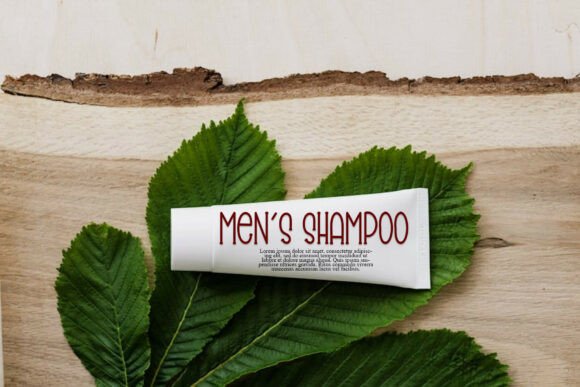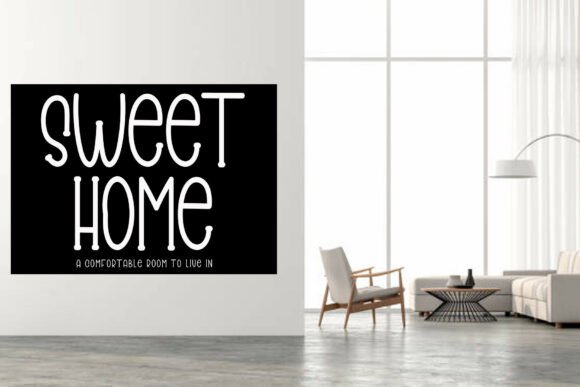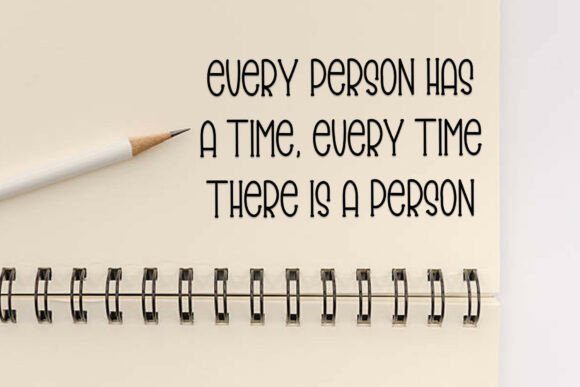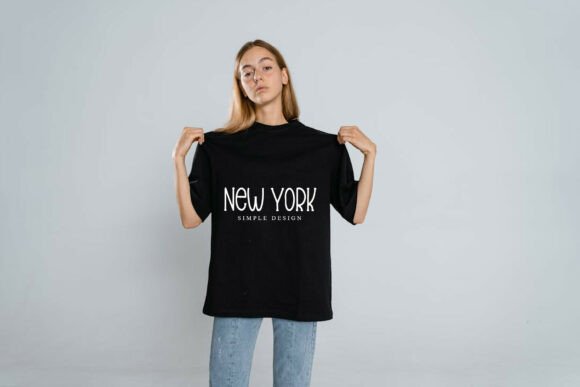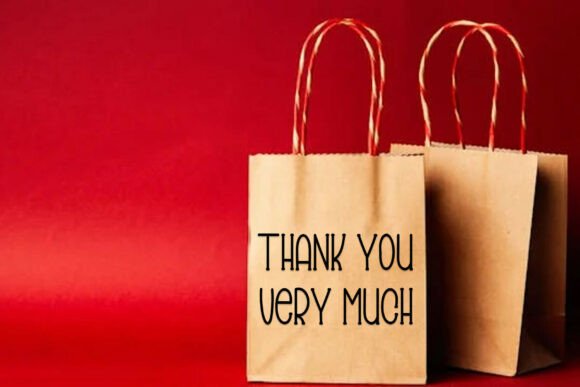
Introducing Autography Font: The Ultimate Holiday Typeface
Are you looking for a font that embodies the spirit of the holiday season? Look no further than Autography Font, a festive and merry typeface that is sure to add a touch of enchantment to your designs. With its decorative elements and whimsical flair, Autography Font is perfect for greeting cards, gift tags, and holiday-themed projects.
The Magic of Autography Font
Autography Font is a beautifully crafted typeface that captures the essence of the holiday season. Its decorative elements and whimsical flair make it perfect for adding a touch of magic to your designs. Whether you’re creating greeting cards, gift tags, or holiday-themed projects, Autography Font is sure to bring a cheerful and nostalgic ambiance to your words.
Autography Font is a must-have for designers and crafters who want to add a touch of holiday cheer to their projects. With its PUA coding, you can easily access all the amazing glyphs and ligatures, making it easy to create beautiful and unique designs. Whether you’re a professional designer or a crafter, Autography Font is the perfect addition to your font collection.
Key Features of Autography Font
- Festive and Merry: Autography Font is a festive and merry typeface that captures the spirit of the holiday season.
- Decorative Elements: The font features decorative elements and whimsical flair, making it perfect for adding a touch of enchantment to your designs.
- PUA Coded: Autography Font is PUA coded, making it easy to access all the amazing glyphs and ligatures.
- Perfect for Holiday Projects: The font is perfect for greeting cards, gift tags, and holiday-themed projects.
Why Choose Autography Font?
There are many reasons why Autography Font is the perfect choice for your holiday designs. Here are just a few:
- Unique and Eye-Catching: Autography Font is a unique and eye-catching typeface that is sure to stand out in your designs.
- Easy to Use: The font is easy to use and can be accessed easily with its PUA coding.
- Versatile: Autography Font is versatile and can be used for a variety of holiday-themed projects.
- High-Quality: The font is high-quality and is sure to add a touch of professionalism to your designs.
Tips for Using Autography Font
Here are a few tips for using Autography Font in your designs:
- Use it for Headings: Autography Font is perfect for headings and titles, adding a touch of festive flair to your designs.
- Experiment with Colors: The font looks great in a variety of colors, so don’t be afraid to experiment and find the perfect color for your design.
- Pair it with Other Fonts: Autography Font can be paired with other fonts to create a unique and eye-catching design.